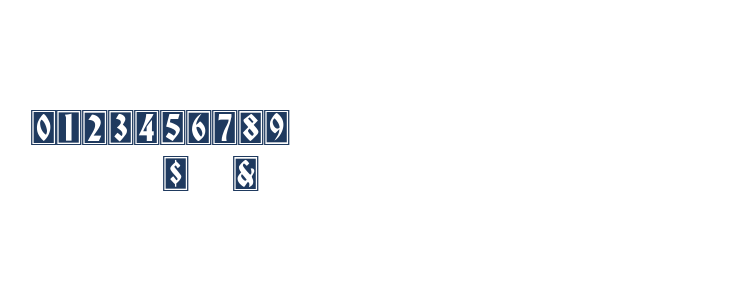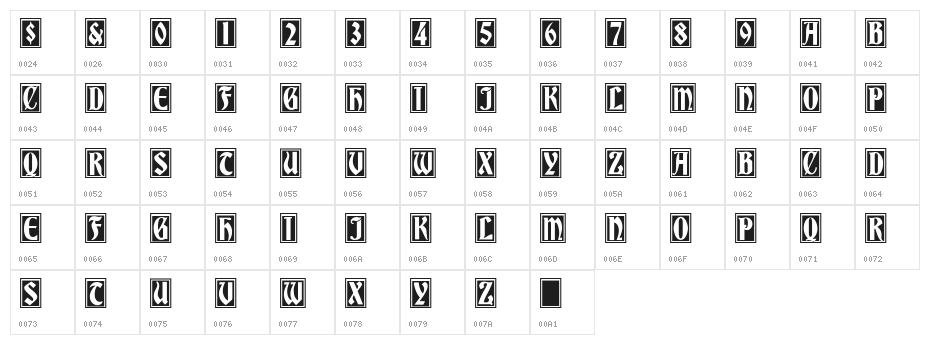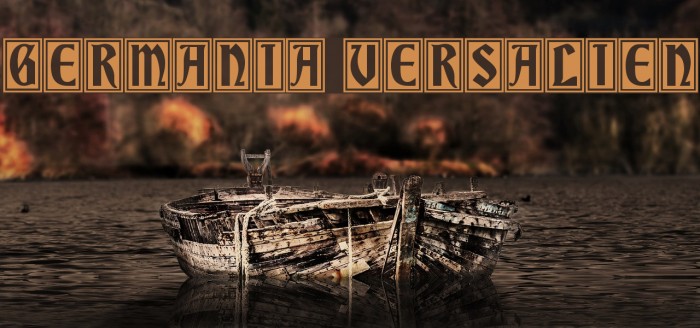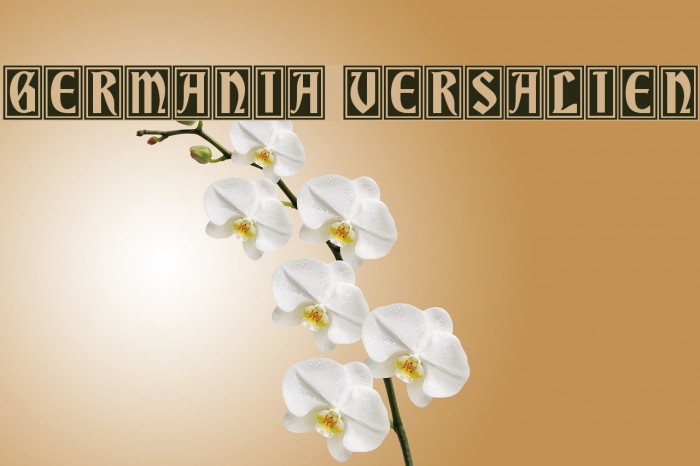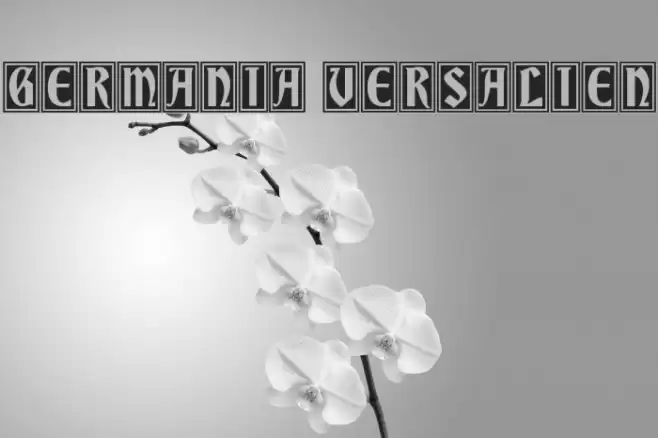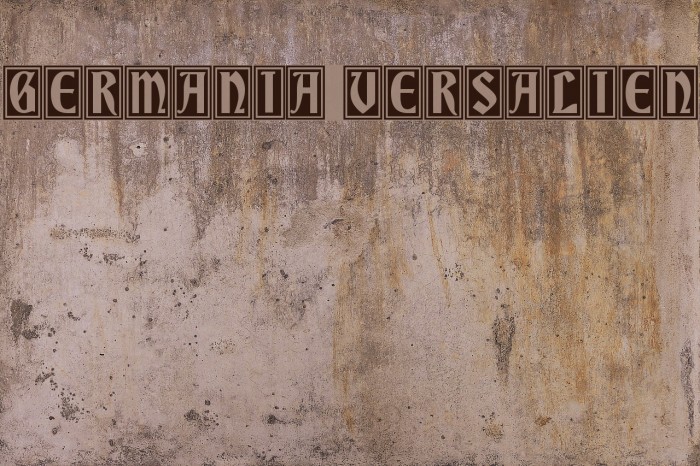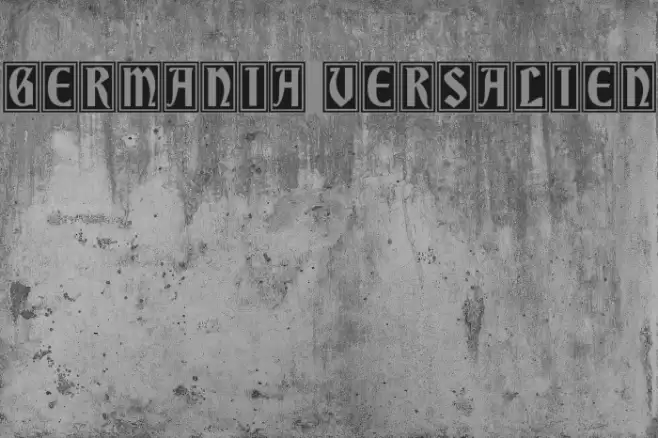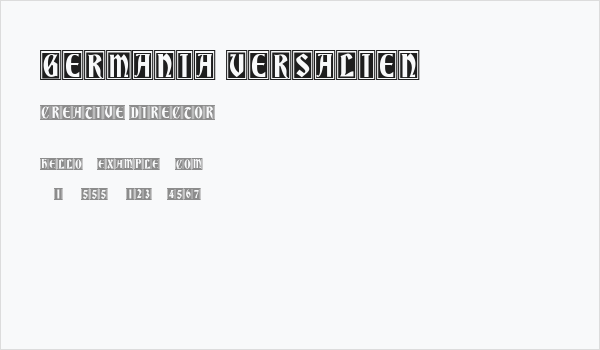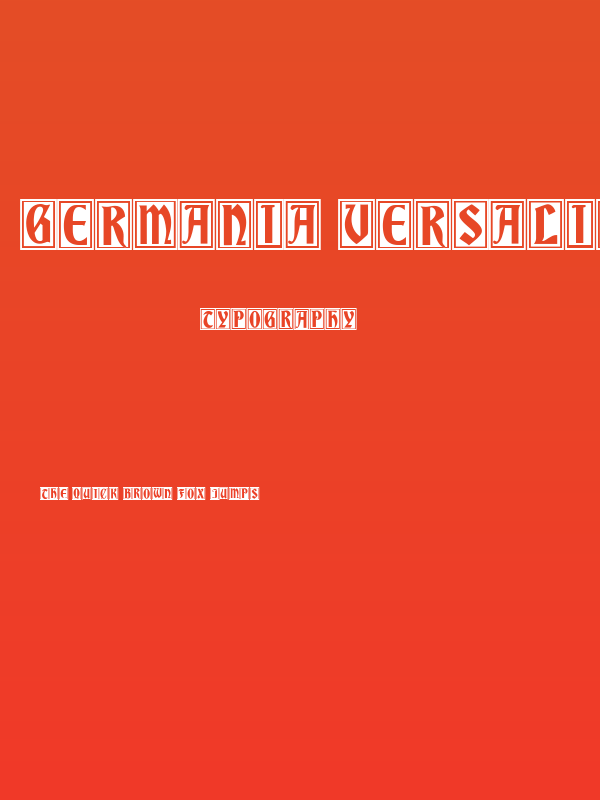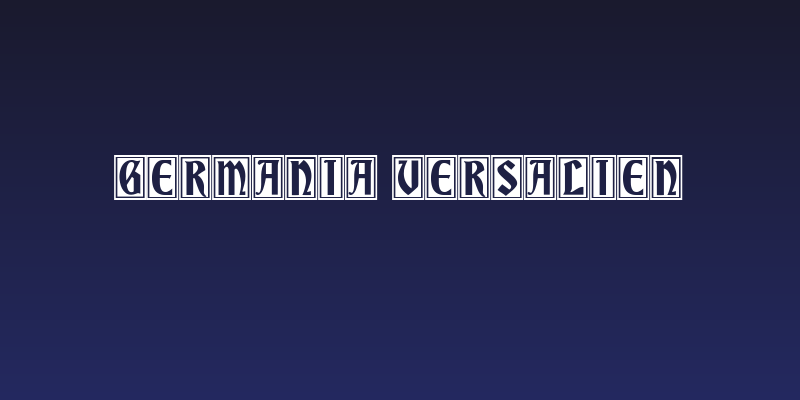
Germania Versalien Font
Germania Versalien Description
This font features a bold and dramatic style with a strong blackletter influence. Each character is enclosed in a rectangular border, enhancing its presence and making it stand out. The letters exhibit sharp, angular lines with a high contrast between thick and thin strokes, typical of traditional blackletter fonts. The uppercase and lowercase letters maintain a consistent style, with ornate details that add a touch of elegance and historical flair. The numbers and special characters are designed to match the overall aesthetic, ensuring a cohesive look across all elements.